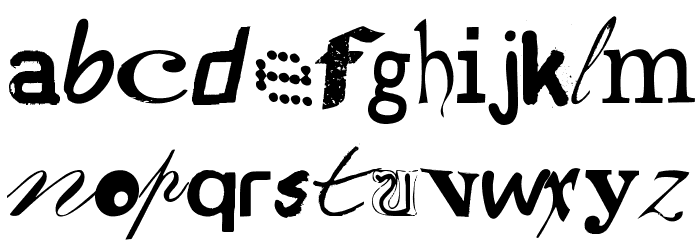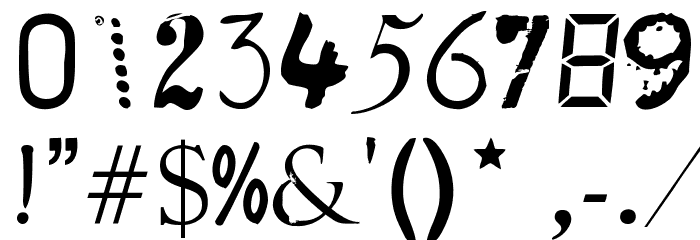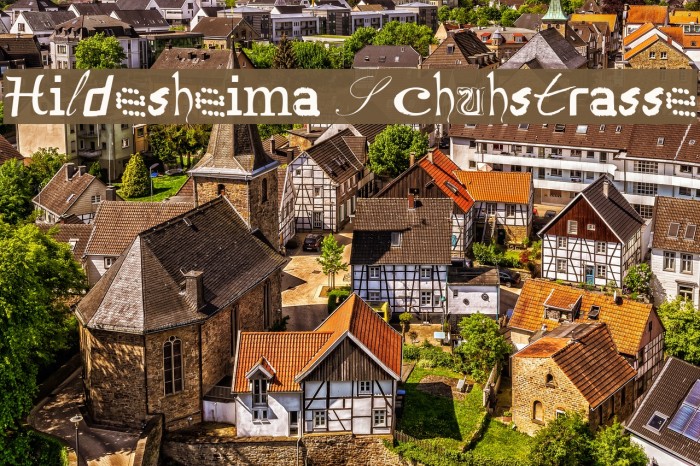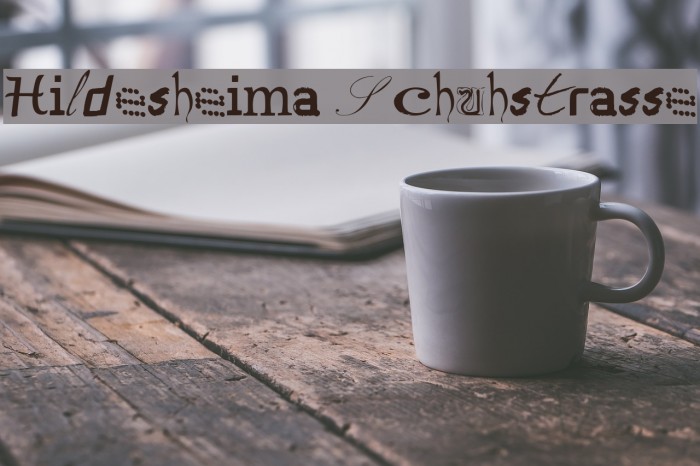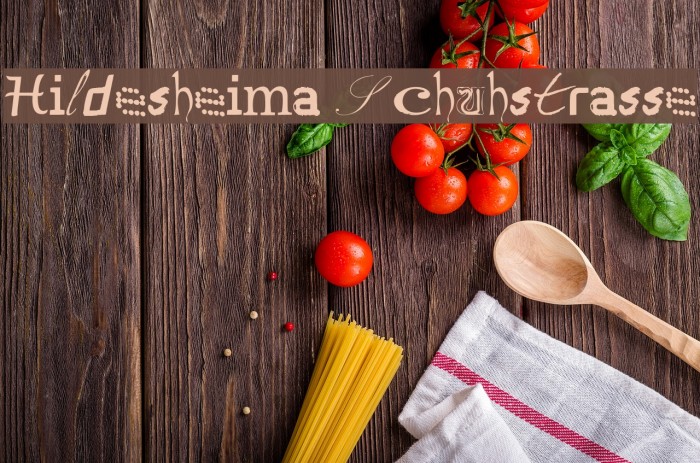
Hildesheima Schuhstrasse Font
This font is a highly decorative and eclectic typeface, featuring a diverse range of styles within each character. The uppercase letters exhibit a mix of bold, ornate, and sometimes distressed elements, creating a visually striking appearance. Lowercase letters continue this theme with a variety of unique shapes and embellishments. Numbers and special characters maintain the decorative style, ensuring consistency across the set. The font's design is reminiscent of vintage and artistic influences, making it ideal for projects that require a bold and creative touch.
A decorative and eclectic font with a mix of bold and ornate styles.
- Proposed Projects: Ideal for artistic projects, posters, album covers, and any design requiring a unique and bold typeface.